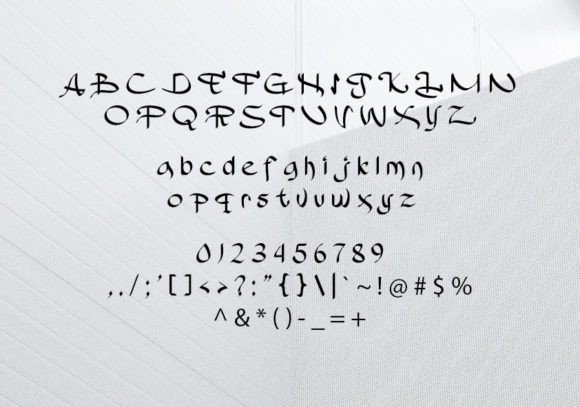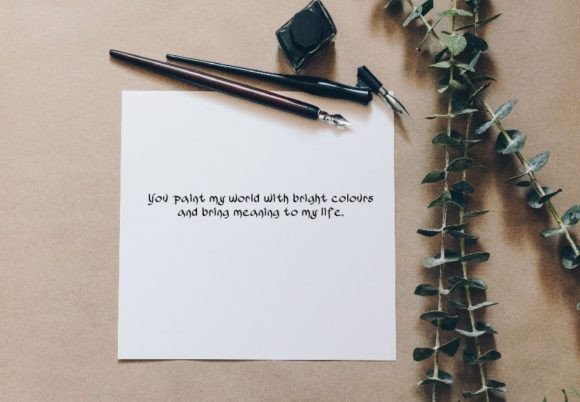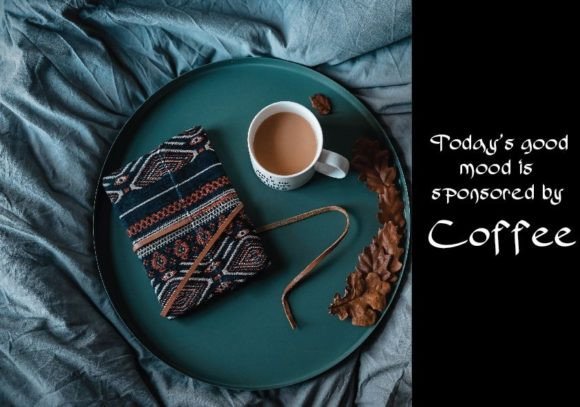
Introduction to Harmonie Teletele Font
Have you ever been stuck on a design project, searching for that perfect font to give it that extra oomph? You know, the moment when everything falls into place and your design goes from good to great? That’s exactly what happened to us when we stumbled upon the Harmonie Teletele Font.
With its modern and quirky design, this funky script font is sure to bring a unique and stylish vibe to any project. Whether you’re working on a free download or a high-quality design resource, Harmonie Teletele Font is the perfect addition to your creative project.
As a valuable resource for designers, Harmonie Teletele Font offers a transparent background, allowing you to customize and personalize your design to perfection. In this article, we’ll dive deeper into the world of Harmonie Teletele Font and explore its many features and applications.
Key Features of Harmonie Teletele Font
- High-quality design resource for creative projects, available for free download with transparent background.
- Features a unique, stylized design that adds a touch of elegance to any text-based element, making it ideal for branding and advertising materials.
- Includes a wide range of characters, including uppercase and lowercase letters, numbers, and punctuation marks, for comprehensive typographic support.
Honest Review: Harmonie Teletele Font
I recently stumbled upon the Harmonie Teletele Font and was excited to dive in and see what it had to offer. As a designer, I’m always on the lookout for high-quality design resources to elevate my creative projects.
Here are some things that really stood out to me: ✨
- High-quality design: The font is crisp and clear, making it perfect for a variety of design applications.
However, I did encounter a few limitations: ⚠️
- Limited character set: The font only includes a limited set of characters, which may be a problem for designers who need a more comprehensive font.
- No bold or italic options: Unfortunately, the font doesn’t come with bold or italic options, which may limit its versatility.
Overall, I think the Harmonie Teletele Font is a solid design resource that can add some nice touches to your creative projects. While it has some limitations, its high-quality design and free download make it a great option for designers who are looking for a reliable font to use.
The Harmonie Teletele Font is a high-quality design resource ideal for creative projects. This versatile font is available for free download and features a transparent background, making it perfect for a variety of applications.
To get the most out of the Harmonie Teletele Font, try experimenting with different font sizes, colors, and combinations to create visually appealing designs.
The Harmonie Teletele Font is ideal for:
- Graphic design projects
- Branding and logo creation
- Infographic design
Alternatives to Harmonie Teletele Font
Great Vibes is a high-quality, elegant font that’s perfect for creative projects requiring a sophisticated and stylish look. It’s ideal for use in headings, titles, and other prominent text elements.
Compared to Harmonie Teletele Font, Great Vibes has a more refined and luxurious feel, making it suitable for high-end design projects.
Alex Brush is a beautiful, handwritten font that’s ideal for use in creative projects requiring a personal and artistic touch. It’s perfect for headings, titles, and other text elements where a unique and expressive feel is desired.
Compared to Harmonie Teletele Font, Alex Brush has a more whimsical and creative feel, making it suitable for projects that require a touch of personality.